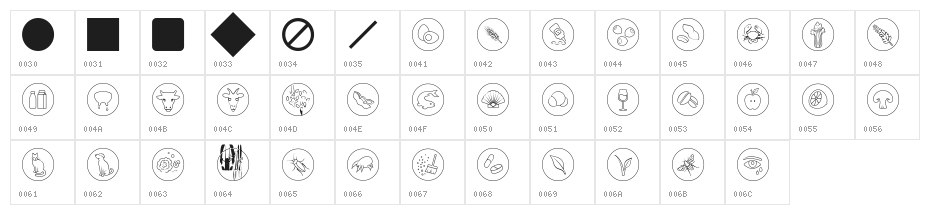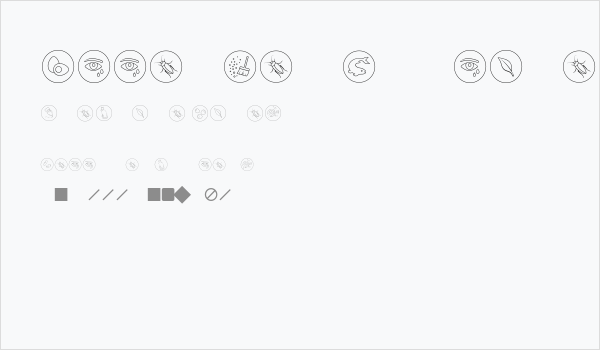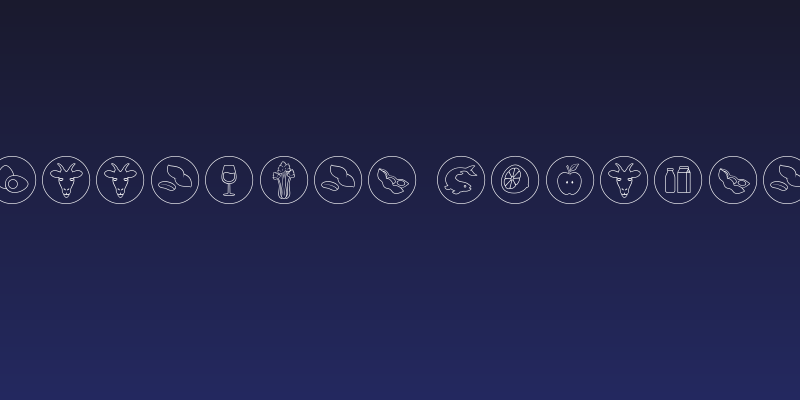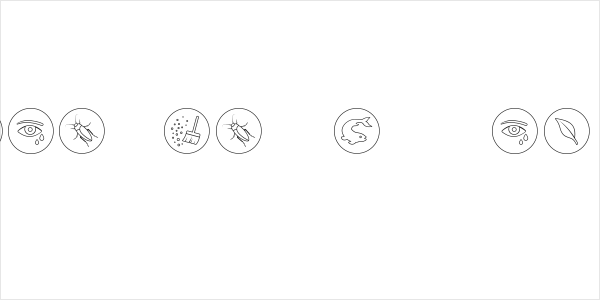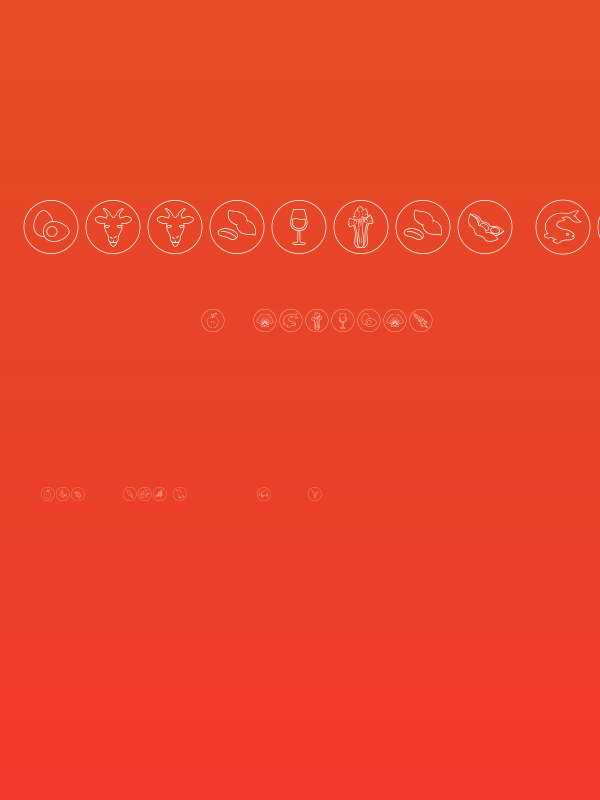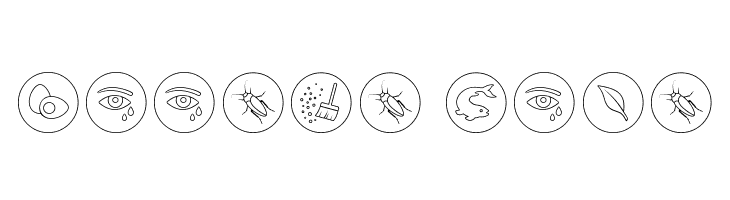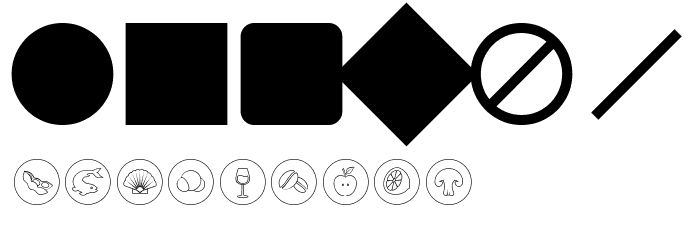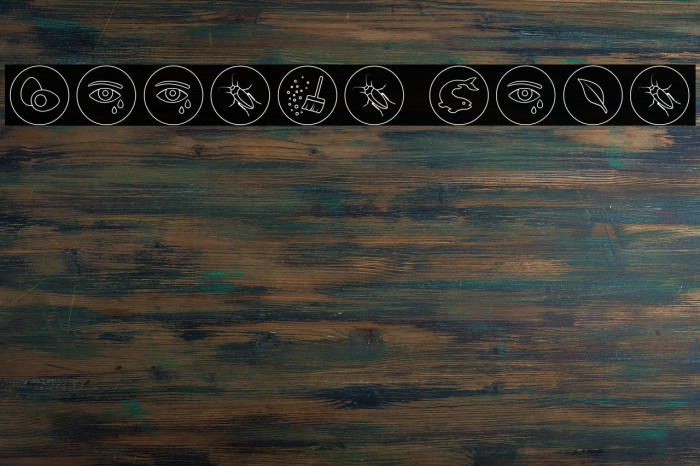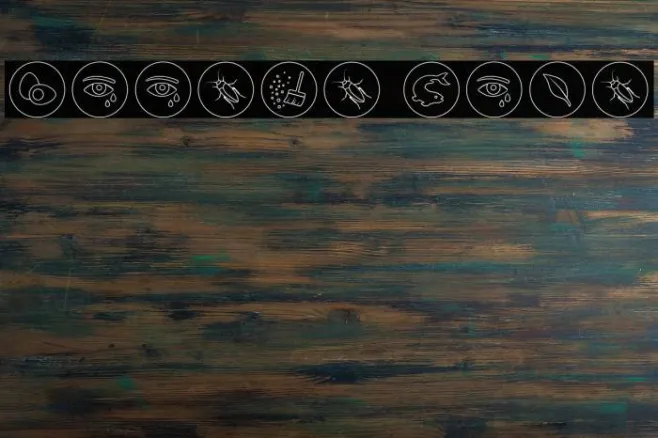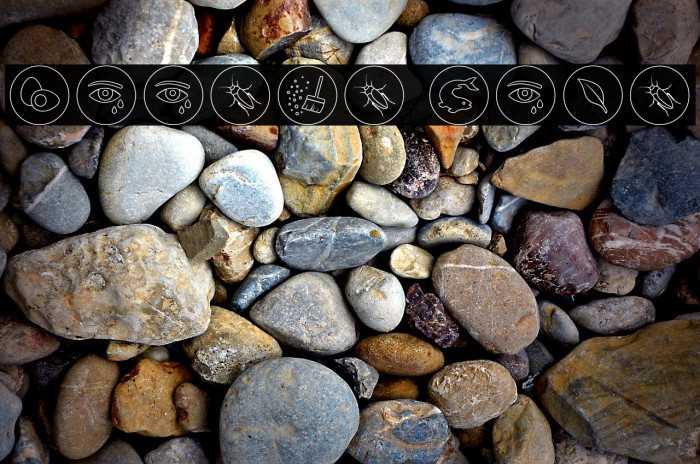
Allergen Outline Font
Allergen Outline Description
A clean, outline icon set with consistent line weight, featuring allergen and food-related symbols inside circular borders. The icons are minimalistic and easily recognizable, with geometric shapes and smooth curves. The style is uniform throughout, with no filled areas except for a row of solid geometric shapes for emphasis or separation.
| Overall Style | Modern, Minimalist, Informational |
| Use Case | Icons for menus, packaging, signage, digital interfaces. |
| Proposed Projects | Food packaging, restaurant menus, allergen information sheets, mobile apps, infographics. |